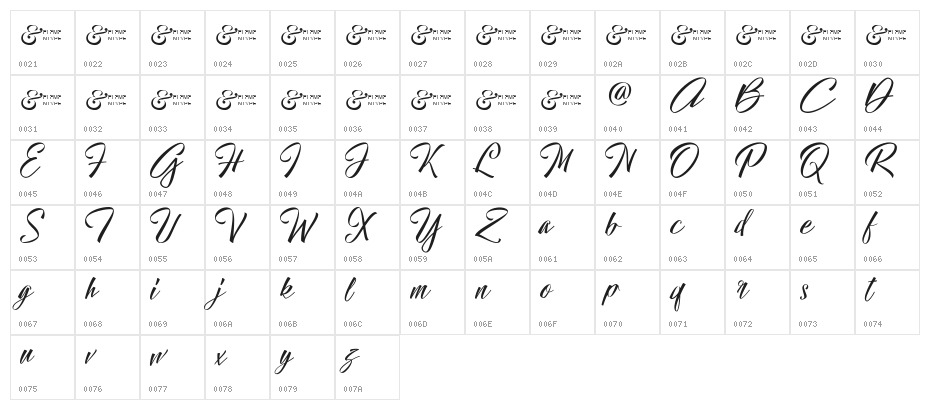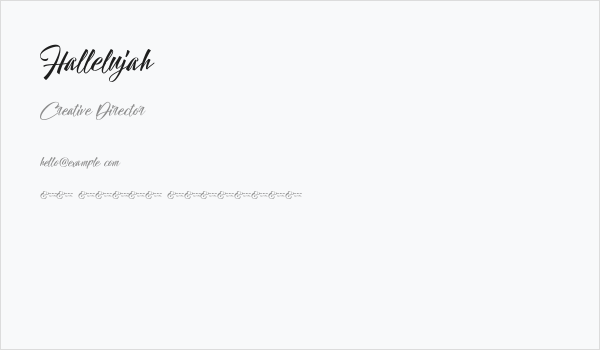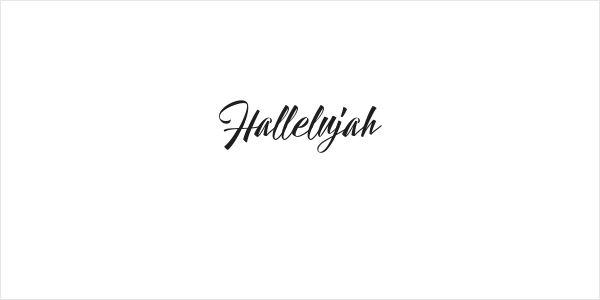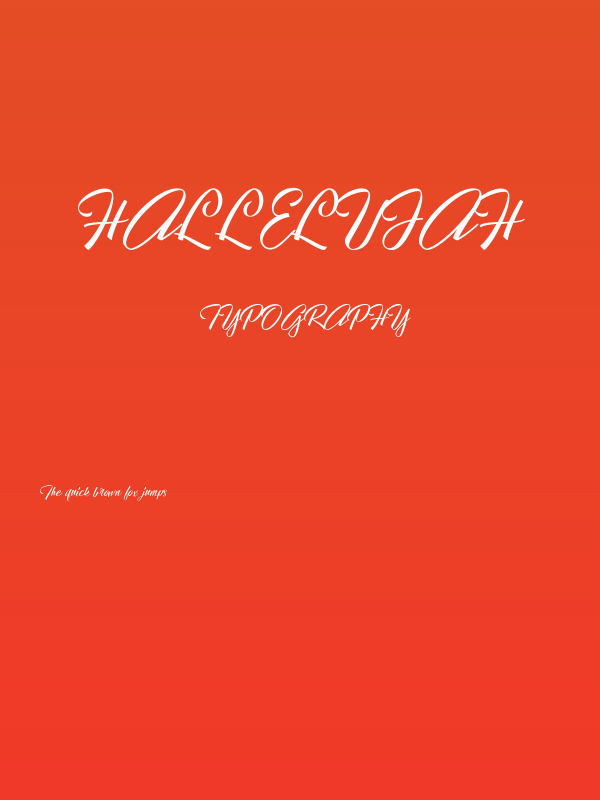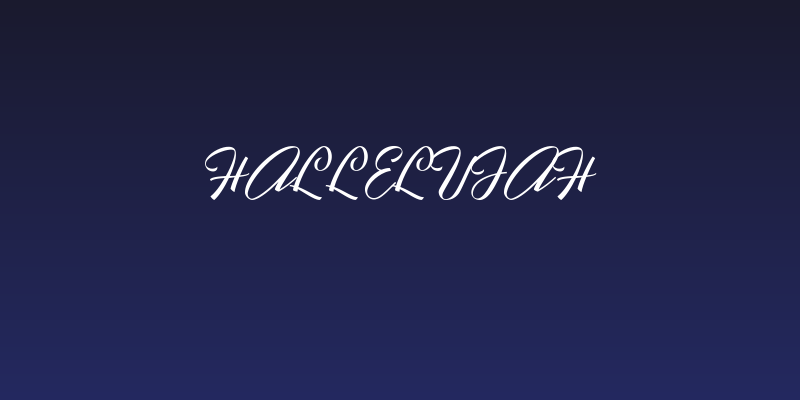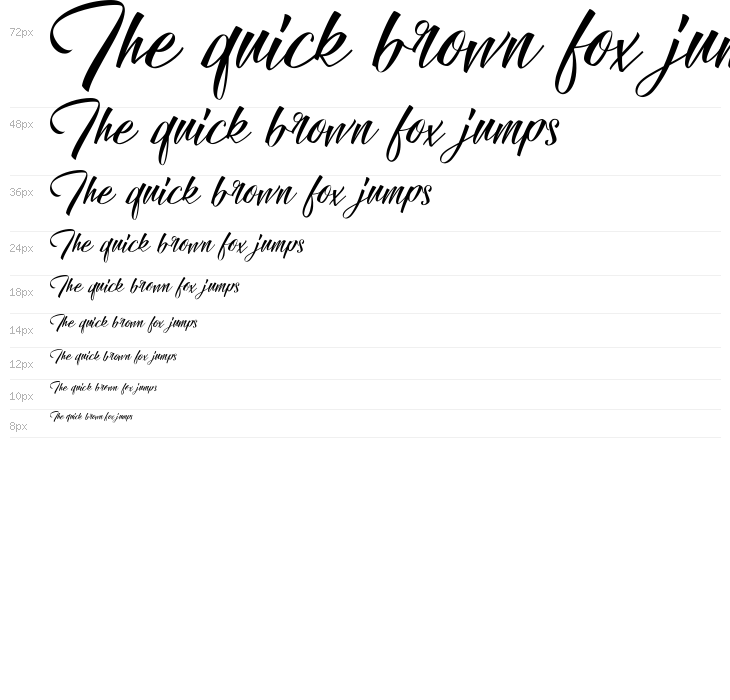
Hallelujah Font
Hallelujah Description
This font exudes elegance and sophistication with its fluid, cursive style. The letters are gracefully connected, creating a seamless flow that is both artistic and readable. The uppercase letters are bold and striking, while the lowercase letters maintain a consistent rhythm, enhancing the overall aesthetic appeal. The font's design features a high contrast between thick and thin strokes, adding to its dynamic and expressive nature. It is perfect for projects that require a touch of class and creativity, such as invitations, branding, and decorative text.
| Overall Style | Elegant, Artistic |
| Use Case | Headlines, Invitations, Branding |
| Proposed Projects | Ideal for wedding invitations, elegant branding, decorative headlines, and artistic projects. |